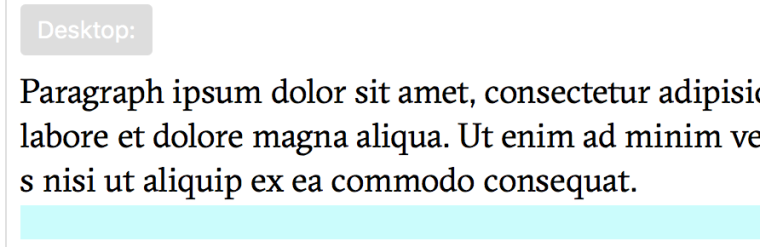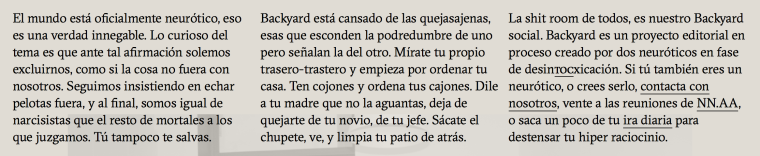
Render fonts
I have detected a nuance regarding the display of fonts. The fonts look slightly thicker than the originals. I have "fixed" it with css:
body {
-webkit-font-smoothing: antialiased;
Text-rendering: optimizeLegibility;
}
Is posible view the fonts with custom css in the Text Formats section?
I think is more good the render with custom css, is more similar to the original font, but to work fine in the Text Formats section I need view the render font equal.
The render font with custom css:
The render font with lay theme:
The render font with lay theme in Text Formats section:
Indeed this is a great way to make fonts look much nicer.
body {
-webkit-font-smoothing: antialiased;
Text-rendering: optimizeLegibility;
}
Until now it is not embedded in the Backend but we will consider implementing it in the future.
Hey!
much better this way:
body, html {
-webkit-font-smoothing: antialiased;
text-rendering: optimizeSpeed;
}
optimizeLegibility cause a tremble effect when reloaded the page.